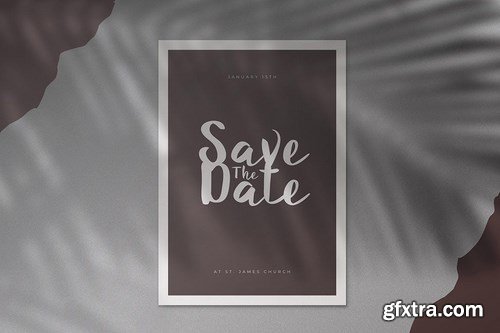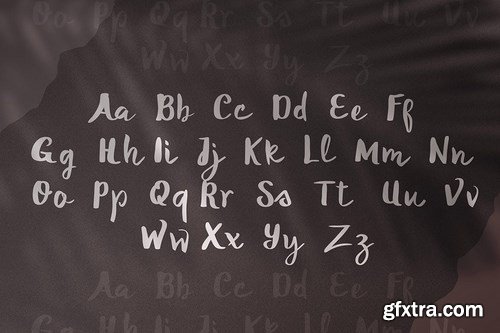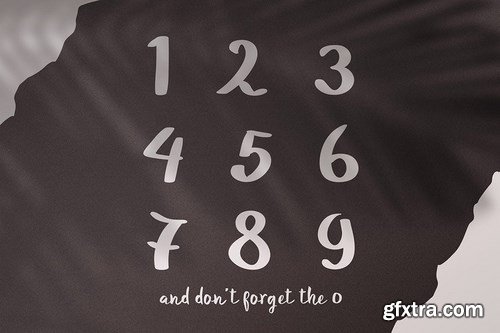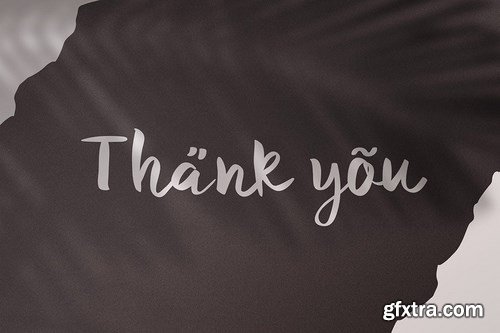
Introducing Starglow - A Bold and Playful Script font with a handmade brush look.
This font is designed for logos, headlines, quotes, invitations, cards and so much more. It has a slight rustic and authentic handmade vibe to it's look. It's also perfect for all kinds of DIY craft projects and for Circuit cutting machines. Here's what you'll get: Starglow TTF Starglow OTF Starglow WOFF